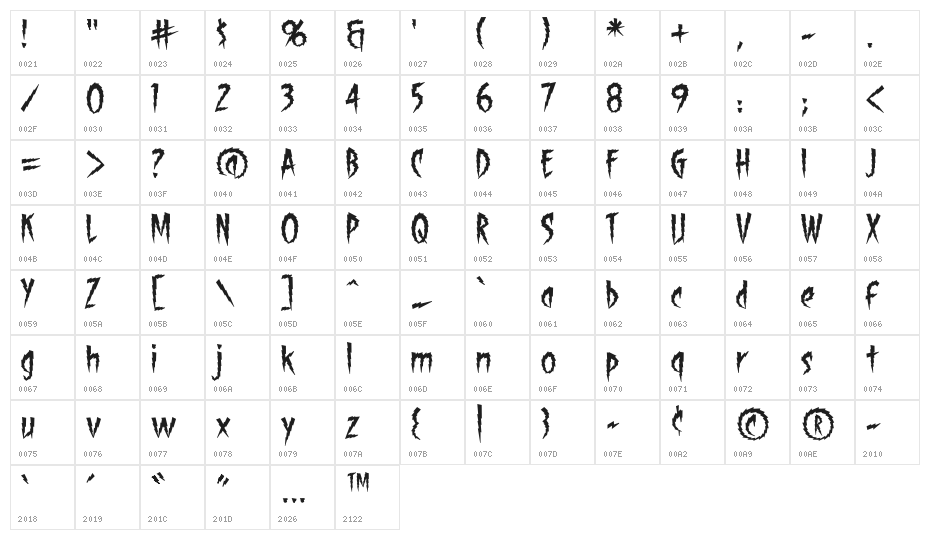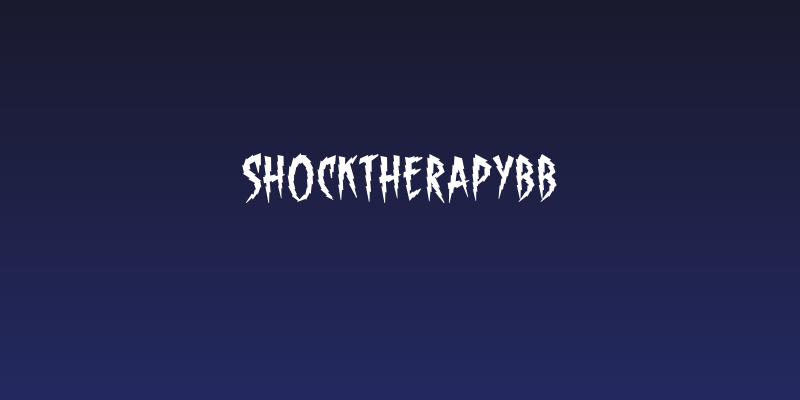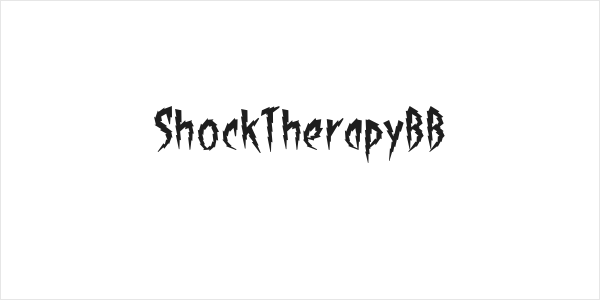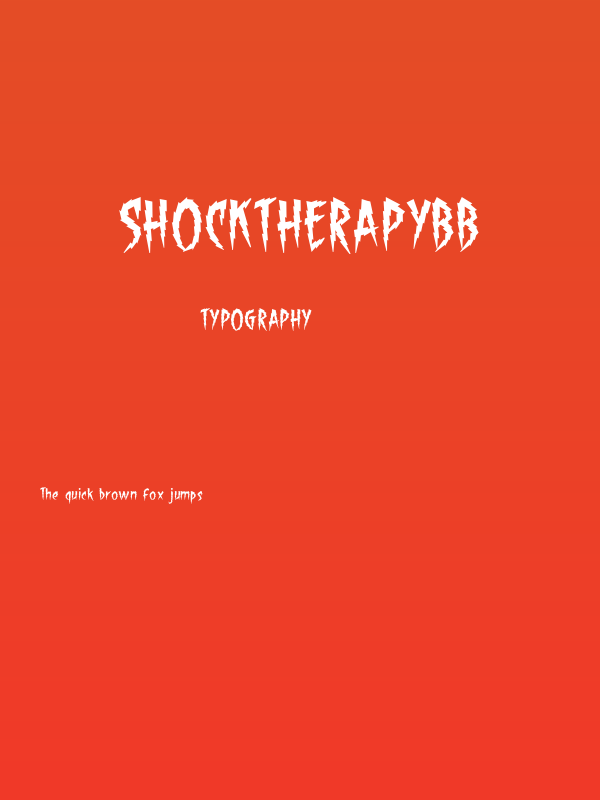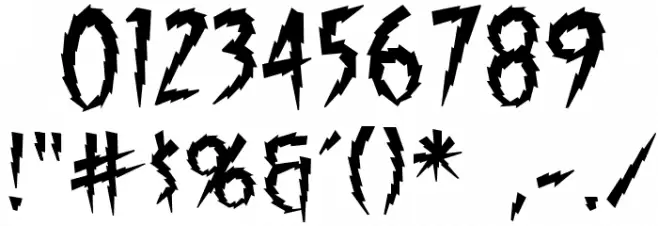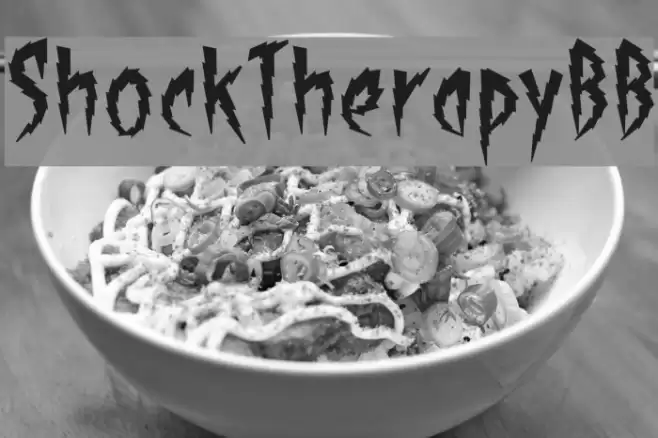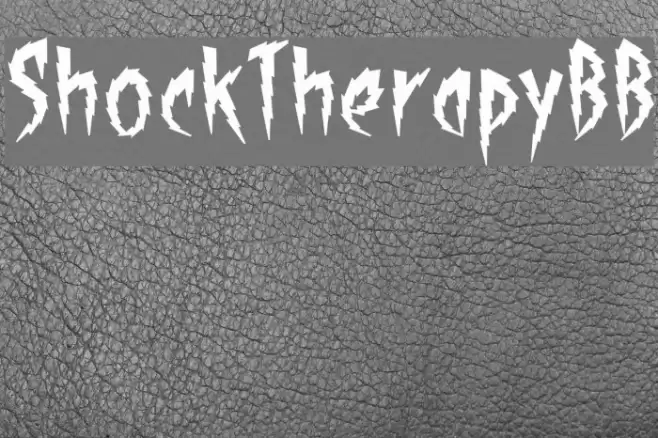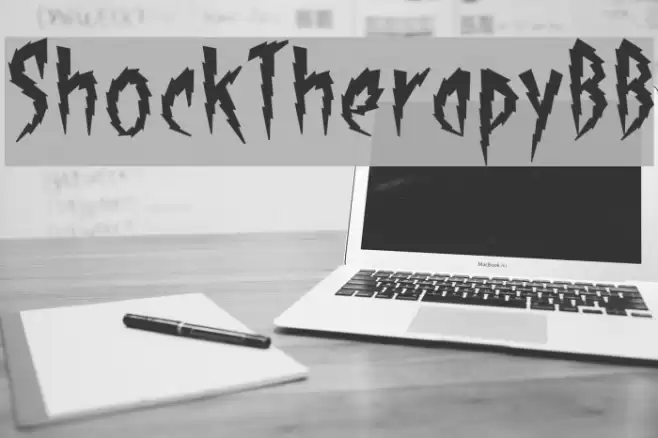
ShockTherapyBB Font
ShockTherapyBB Description
This font features a bold, jagged design that evokes a sense of electricity and energy. The sharp, angular edges of each character give it a dynamic and aggressive appearance, making it stand out in any context. The uppercase and lowercase letters maintain a consistent style, with exaggerated spikes and irregular shapes that add to its unique character. Numbers and special characters follow the same aesthetic, ensuring uniformity across all text. This font is ideal for projects that require a striking and unconventional look.
| Use Case | Headlines, Posters, Logos |
| Proposed Projects | Perfect for horror-themed designs, music album covers, Halloween posters, or any project needing a dramatic and edgy typeface. |